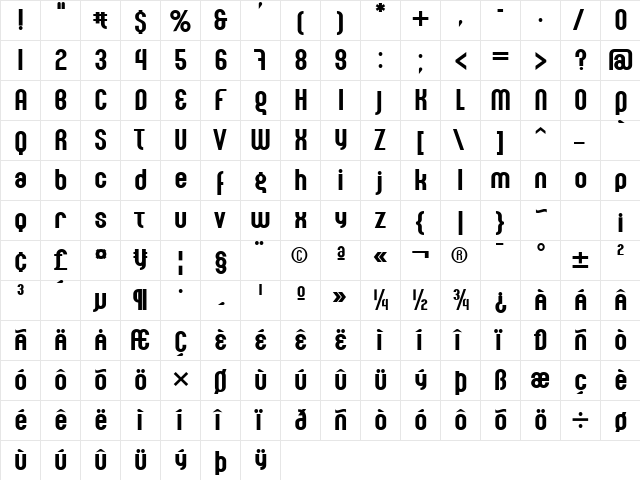
Phobos Regula Font Preview
Phobos Regula
Phobos Regula Font Details
| Style | Regula |
| Foundry | Linotype Library GmbH |
| Designer | Silvan Kaeser |
Design Context for Phobos Typeface
Phobos is a composed and adaptable typeface that performs quietly and consistently across a wide range of design contexts.